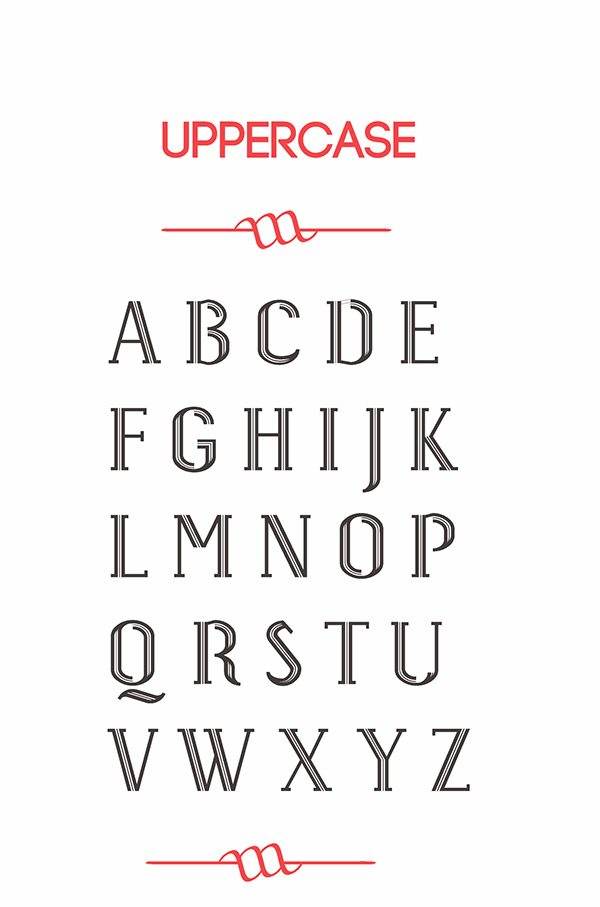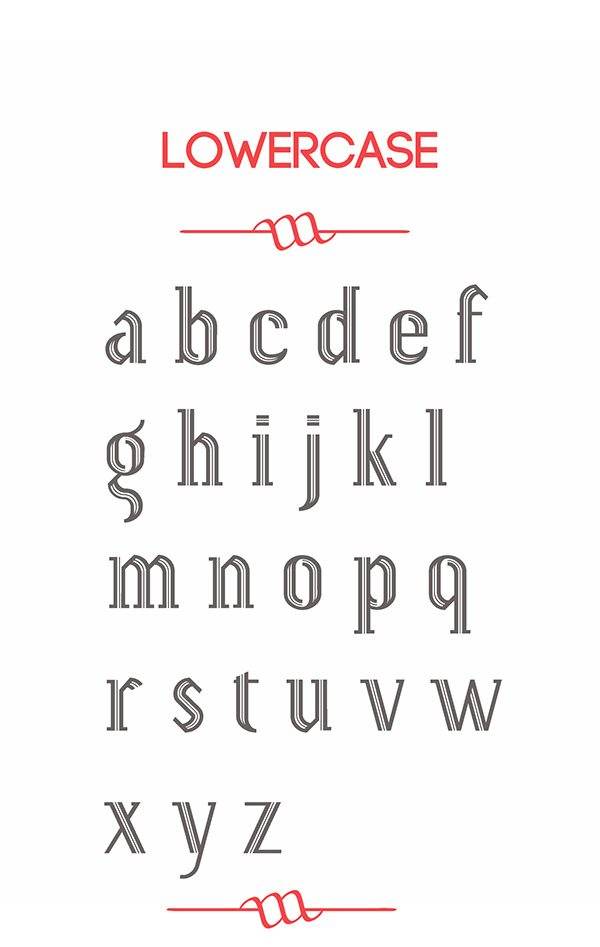
Fonts Free Font Of The Day #112 – Pristina Font by Yayang Apryana February 7, 2015 Pristina Font The font is a beautiful and timeless typeface.It speaks of grace and elegance.It has a certain enigma attactched to it. Designed by Aritro Das. Download